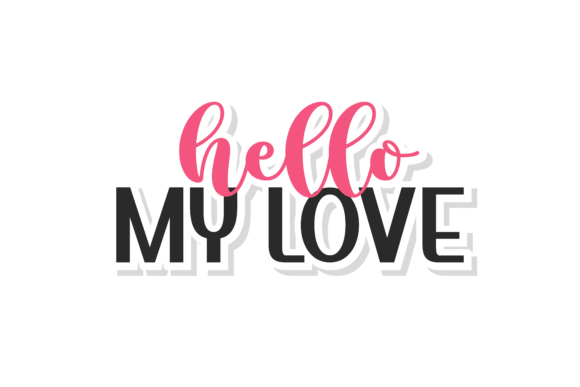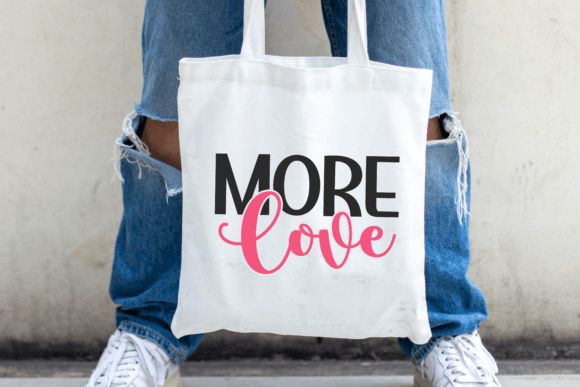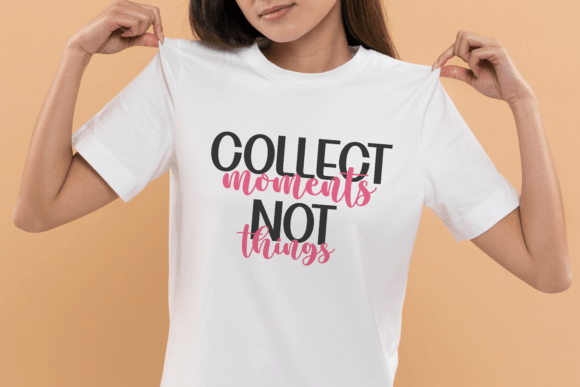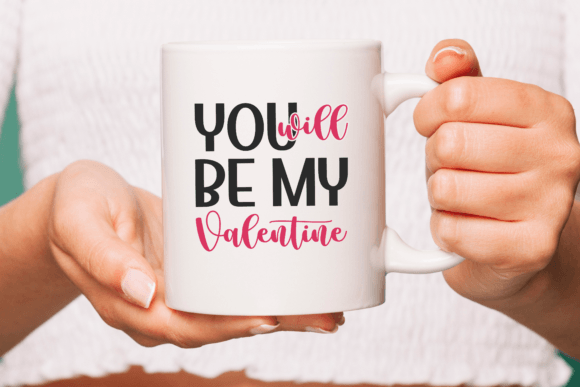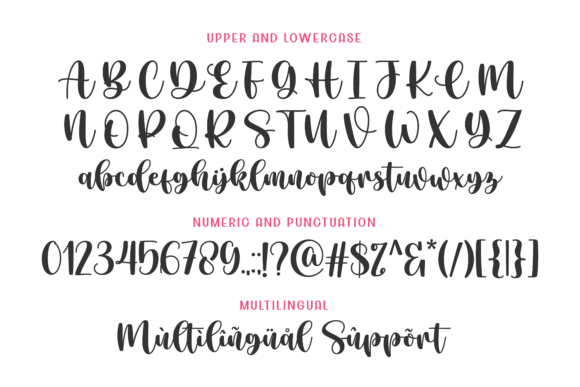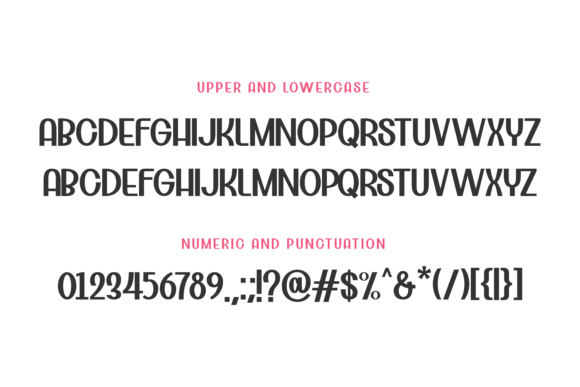
When a Font Speaks Volumes
You know that moment when you’re working on a design and the perfect font just clicks? For designers, it’s a rush of excitement and a sense of relief. It’s like finding the missing piece to a puzzle. That’s what happened when we stumbled upon the Boldish Font – a beautiful blend of elegance and modernity.
The Boldish Font is a masterful combination of a flowing, handwritten script and bold, clean letters. It’s the perfect solution for designs that require a personal touch with a modern twist. Whether you’re creating product labels, social media posts, or special event designs, this font is sure to make your work stand out. As a designer, you know how valuable it is to have a versatile font that can elevate your projects and leave a lasting impression.
Boldish Font Key Features
- Font Family: Boldish is a sans-serif font family designed for readability and versatility.
- Unique Characteristics: Boldish features a unique blend of geometric and organic shapes, resulting in a clean and modern aesthetic.
Boldish Font Review
Overall, I think the Boldish Font is a decent addition to any designer’s toolkit. Here are some things that I think work well: ✨
It’s super bold, as the name suggests. I love how it grabs attention and makes a statement.
The font is highly legible, even at smaller sizes. I’ve used it for headings and it always looks great.
It’s versatile and can be used in a variety of contexts, from modern websites to traditional print materials.
It may be a bit too bold for some applications. If you’re looking for a font that’s more subtle, you may want to look elsewhere.
The font doesn’t come with a lot of customization options, which can be a drawback for some designers.
It may not be the best choice for body text, as it can be a bit overwhelming when used extensively.
Overall, I think the Boldish Font is a solid choice for designers who want a bold, attention-grabbing font. Just be sure to use it judiciously and consider the context in which you’re using it.
Getting the Most Out of Boldish Font
For optimal results, use Boldish Font in conjunction with bold colors and high-contrast backgrounds.
Experiment with different font sizes and styles to create visually appealing headings and titles.
Boldish Font is ideal for:
- Creating eye-catching headings and titles.
- Designing bold and modern logos.
- Adding a touch of sophistication to your digital content.
Alternatives to Boldish Font for Designers
Great Vibes Font is a modern script font that is perfect for creating a friendly and approachable tone. It’s ideal for use in headings, titles, and quotes. Great Vibes Font is a more elegant and refined alternative to Boldish Font, with a softer and more rounded feel.
Pacifico Font is a beautiful and elegant script font that is perfect for creating a sophisticated and luxurious tone. It’s ideal for use in headings, titles, and logos. Pacifico Font is a more refined and polished alternative to Boldish Font, with a more fluid and cursive feel.
Carolyna Pro Font is a modern script font that is perfect for creating a bold and eye-catching tone. It’s ideal for use in headings, titles, and advertisements. Carolyna Pro Font is a more dramatic and attention-grabbing alternative to Boldish Font, with a more angular and geometric feel.
Alex Brush Font is a beautiful and elegant script font that is perfect for creating a romantic and whimsical tone. It’s ideal for use in headings, titles, and illustrations. Alex Brush Font is a more delicate and refined alternative to Boldish Font, with a more organic and hand-drawn feel.
Exploring Boldish Font
Project 1: Typography-Based Art Piece
Create a visually striking art piece that showcases the versatility of Boldish Font. Use a combination of uppercase and lowercase letters to create a 3D-like effect.
Q: How do I access the Boldish Font’s advanced features, such as ligatures and swashes?